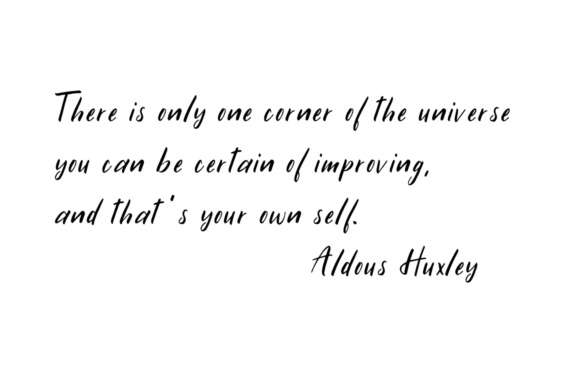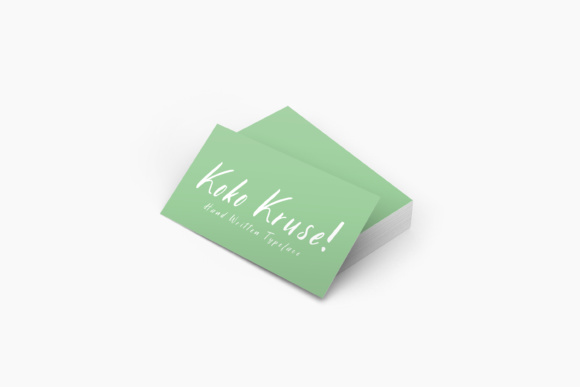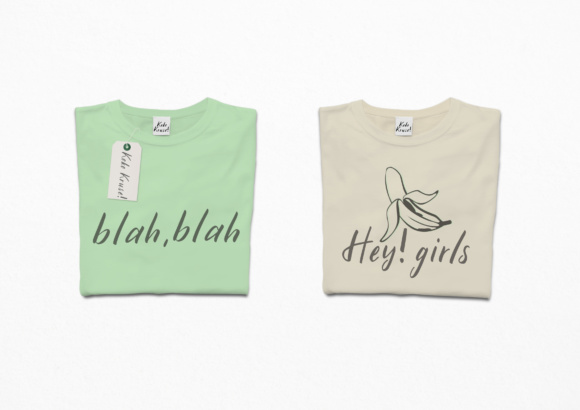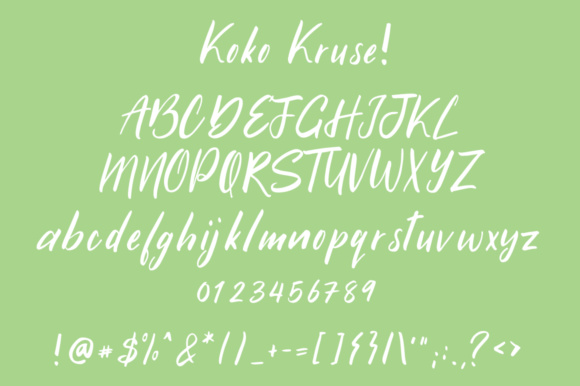
Koko Kruse Font
About Koko Kruse Font
The Koko Kruse is an amazing handwritten lettering script. It’s perfect for logos, frames, blogs, invitations, book covers, and much more!